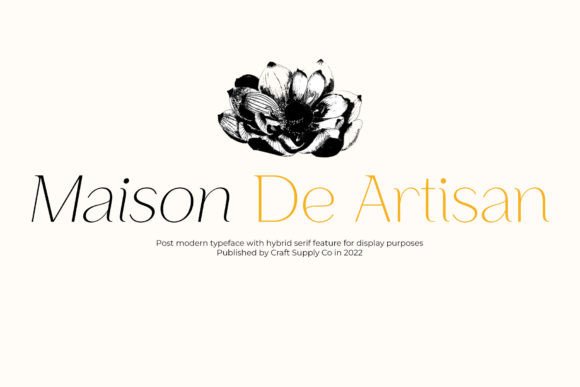
Introducing 'Maison De Artisan', the culinary font that adds a dash of elegance to your food blog. Indulge in its thin, graceful strokes, perfectly crafted to adorn your culinary creations. Whether it's tantalizing recipes, mouthwatering reviews, or enticing promotions, let Maison De Artisan elevate your words into a visual feast.
Maison De Artisan isn't just a font; it's an invitation to culinary artistry. Its delicate curves and flourishes lend an air of sophistication, transforming your blog into a gourmet haven. Whether you're a seasoned food connoisseur or just starting to explore the world of flavors, Maison De Artisan will make your words sizzle and dance, leaving your readers hungry for more.
Feast your eyes on the versatility of Maison De Artisan. It seamlessly adapts to any culinary niche, from rustic farm-to-table blogs to sleek and modern recipe hubs. Its thin, elegant characters add a touch of class to every dish, whether it's a hearty stew or a delicate dessert. With Maison De Artisan, you'll have the perfect font to showcase your culinary expertise.
Say goodbye to bland and unappetizing food blogs. Maison De Artisan is the secret ingredient that transforms your words into a delectable treat. Its exquisite design will leave your readers salivating for your next culinary adventure. So, embrace the flavors of Maison De Artisan and let your blog become a culinary masterpiece.